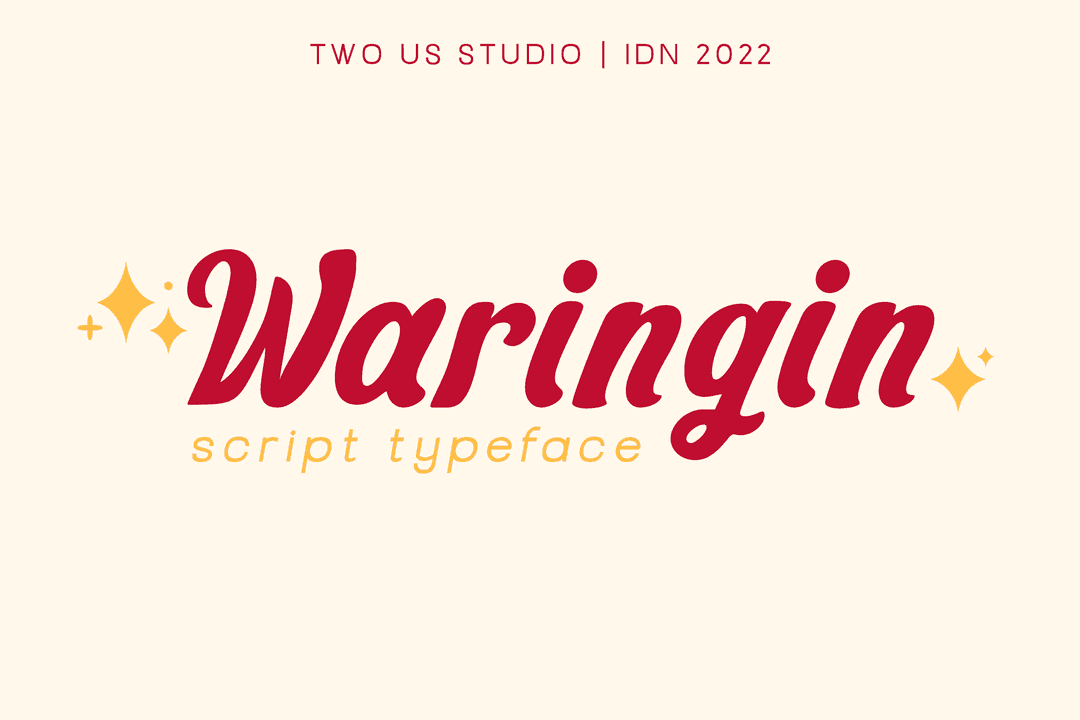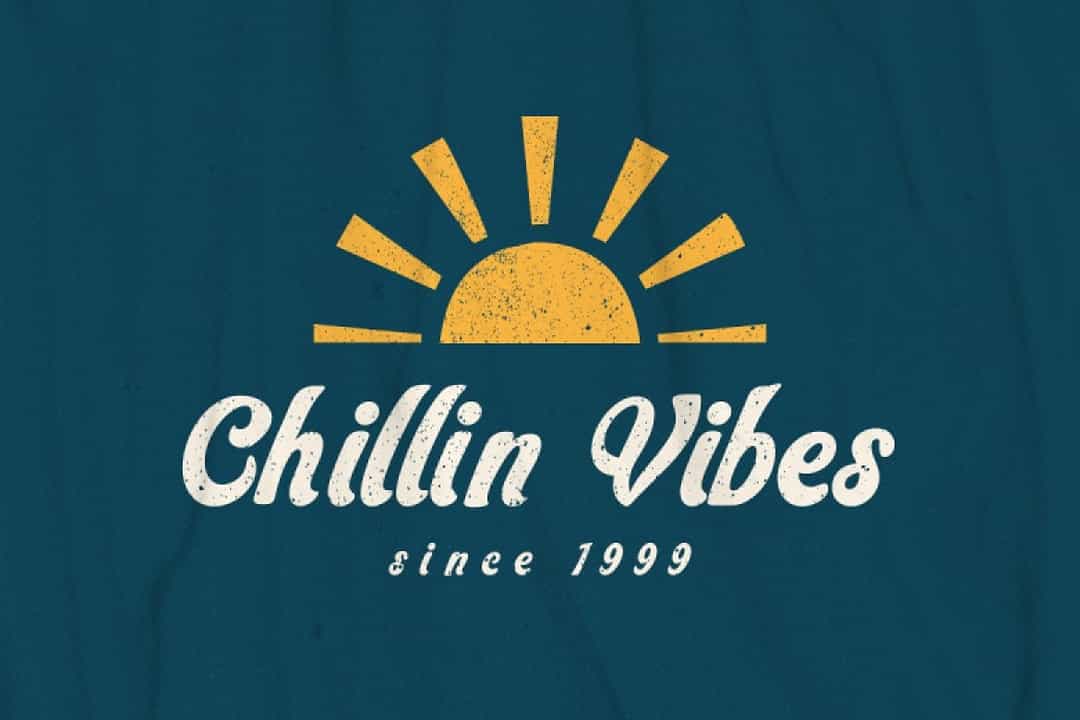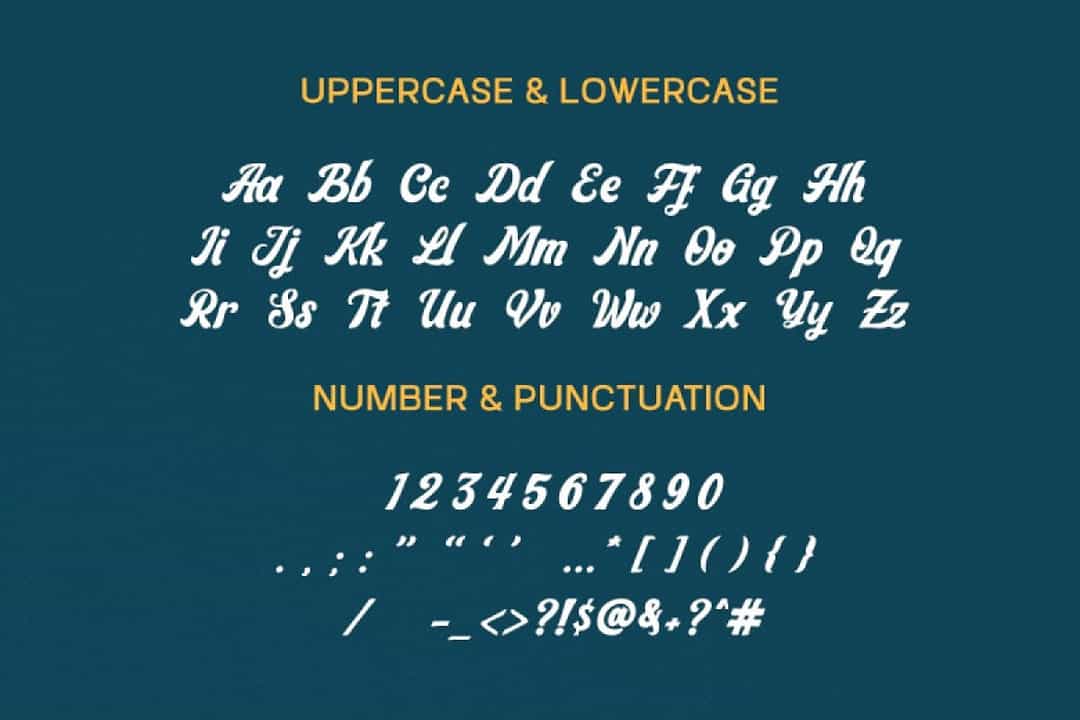
Waringin is an elegant retro script font. You will love its beautiful style and use it to create stunning wedding invitations, stationary pieces, tweets on social networks and so much more!